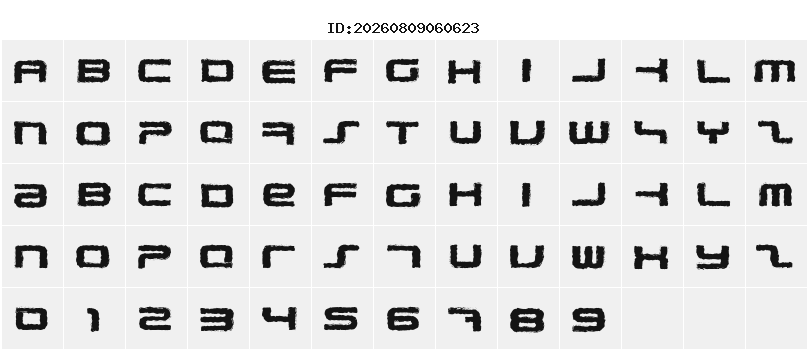
PhatBoy Slim Preview
• Font Name: PhatBoy Slim
• Font Style: Rough
• Font ID: TrTg: PhatBoy Slim Rough: 2011
• Full Font Name: PhatBoySlim-Rough
• Version: Version 1.04 - June 2011
• PostScript Name: PhatBoySlim-Rough
About PhatBoy Slim.otf
PhatBoy Slim.otf is a modern, elegant sans-serif font designed for ultimate readability and visual harmony. Perfect for branding, headlines, web design, and print materials.